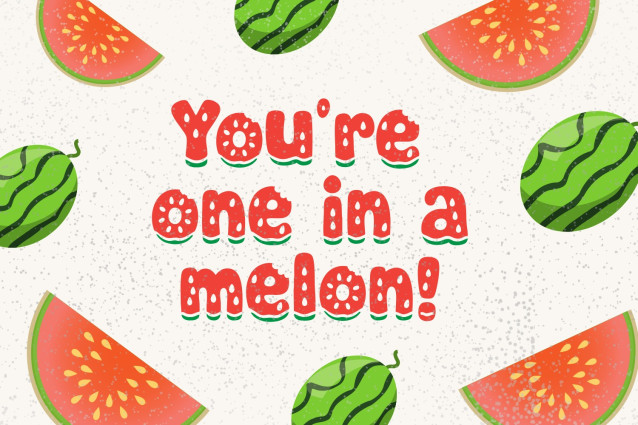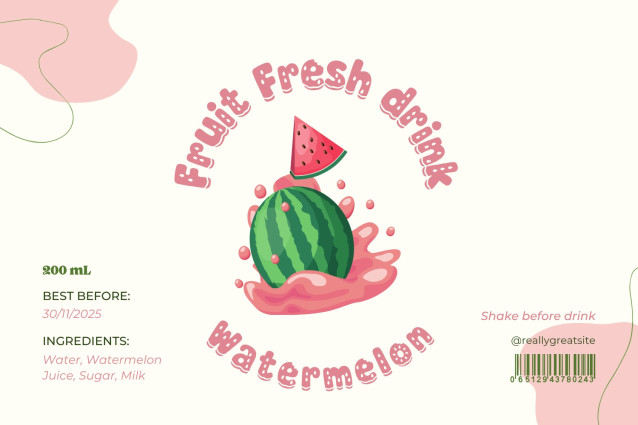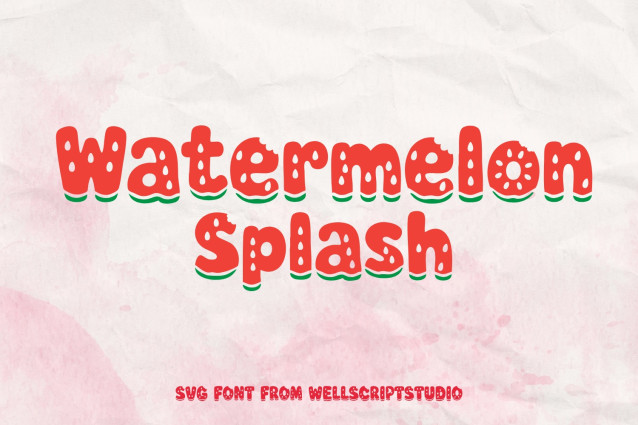
Watermelon Splash Font
Watermelon Splash Font a fresh and playful color SVG font inspired by juicy watermelon slices, sunny days, and sweet summer vibes. Packed with fruity details, watermelon seed accents, and cheerful character shapes, Watermelon Splash is designed to bring a fun and refreshing touch to your creative projects.